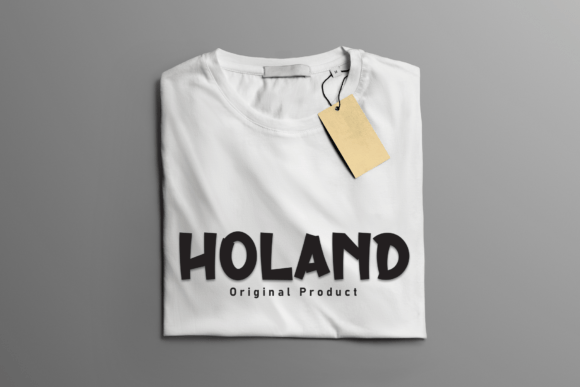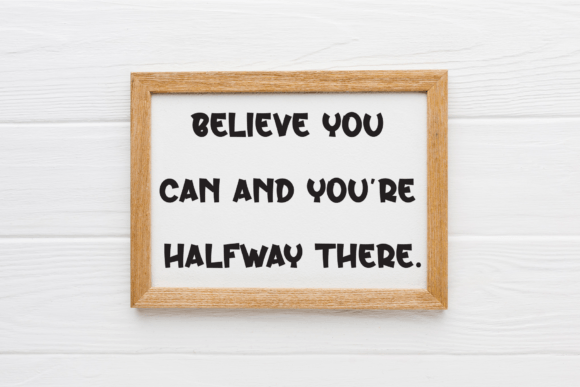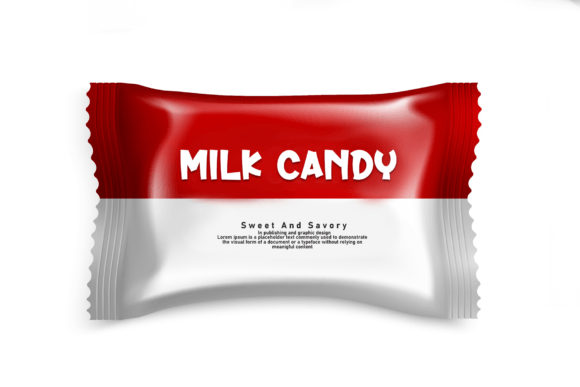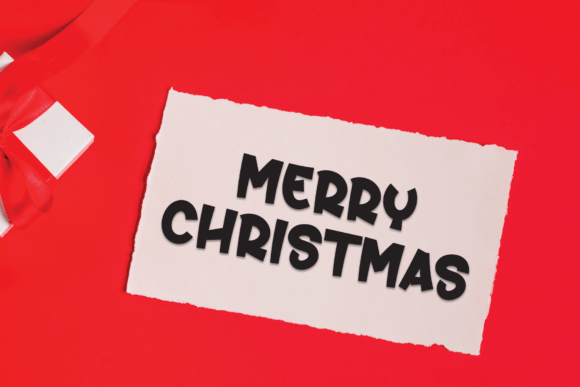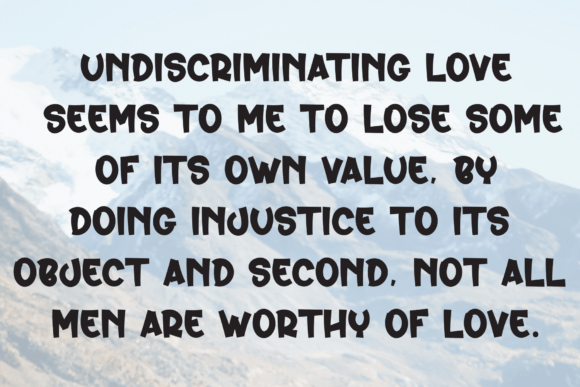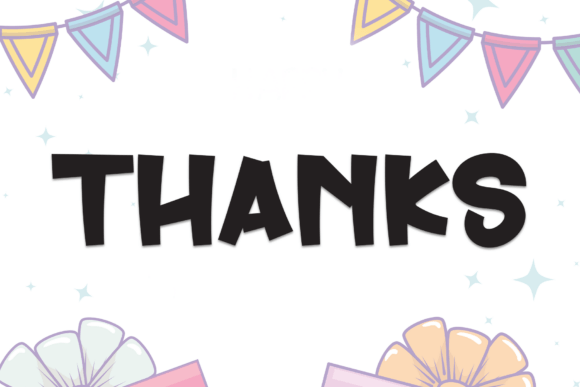
Happy Birthday Font: The Sweet and Friendly Choice for Your Designs
Are you looking for a font that can add a touch of warmth and personality to your designs? Look no further than the Happy Birthday font! This sweet and friendly font is perfect for a wide range of projects, from birthday cards and party invitations to branding and marketing materials. In this article, we’ll take a closer look at the Happy Birthday font, its unique style, and how you can use it to take your designs to the next level.
A Natural and Unique Style
The Happy Birthday font is a one-of-a-kind typeface that boasts a natural and unique style. Its organic feel makes it instantly recognizable and sets it apart from more traditional fonts. The font’s design is characterized by its rounded edges, gentle curves, and playful flair, giving it a friendly and approachable vibe. Whether you’re creating a design for a personal project or a commercial one, the Happy Birthday font is sure to make it stand out.
One of the best things about the Happy Birthday font is its incredible versatility. Its natural and unique style makes it incredibly fitting to a large pool of designs, and the only limit is your imagination! Here are just a few ideas to get you started:
- Birthday cards and party invitations: The Happy Birthday font is perfect for creating custom birthday cards and party invitations that are sure to delight the recipient.
- Branding and marketing materials: Use the Happy Birthday font to add a touch of personality to your brand’s marketing materials, such as brochures, flyers, and social media graphics.
- Crafting and DIY projects: The Happy Birthday font is a great choice for crafters and DIY enthusiasts who want to add a personal touch to their projects, such as handmade cards, scrapbook pages, and wood signs.
- Digital graphics and animations: The font’s playful style makes it perfect for use in digital graphics and animations, such as explainer videos, social media animations, and website headers.
Why Choose the Happy Birthday Font?
So why choose the Happy Birthday font for your designs? Here are just a few reasons:
- Unique style: The Happy Birthday font has a one-of-a-kind style that’s sure to make your designs stand out.
- Versatility: The font is incredibly versatile and can be used in a wide range of designs and projects.
- High-quality design: The font is designed to high standards, ensuring that it looks great in any design.
Tips for Using the Happy Birthday Font
Here are a few tips for using the Happy Birthday font in your designs:
- Experiment with different colors: The Happy Birthday font looks great in a wide range of colors, so don’t be afraid to experiment and find the perfect hue for your design.
- Pair it with other fonts: The Happy Birthday font can be paired with other fonts to create a unique and interesting design.
- Use it in combination with graphics: The font looks great when used in combination with graphics, such as illustrations, photos, and icons.
The Happy Birthday font is a sweet and friendly typeface that’s perfect for designers and crafters who want to add a touch of personality to their designs. Its natural and unique style makes it incredibly fitting to a large pool of designs, and the only limit is your imagination! With its versatility, ease of use, and high-quality design, the Happy Birthday font is a great choice for any project. So why not give it a try and see what amazing designs you can create?